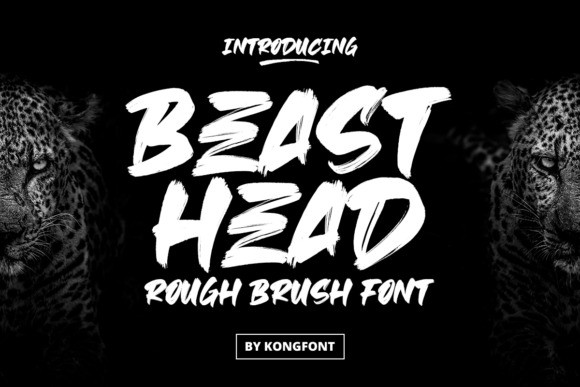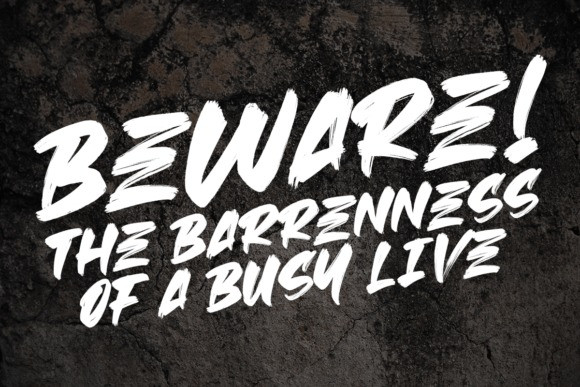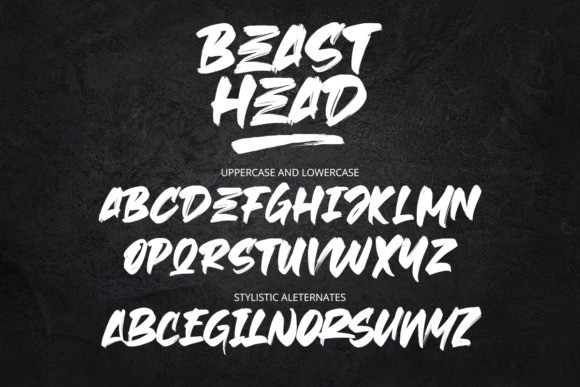
Beast Head Font
Beast Head is a simple and bold look brush font. It’s perfect for any design idea! Use this font to create fun and romantic designs, or use it with other fonts to create awesome designs!